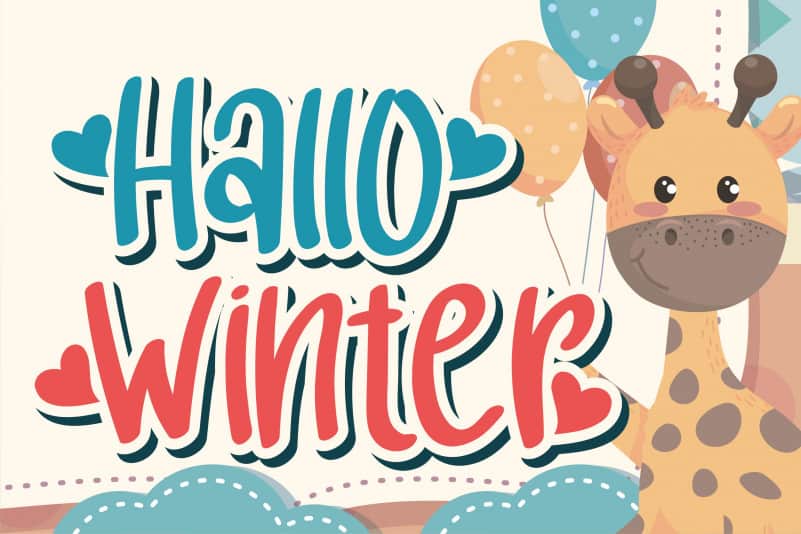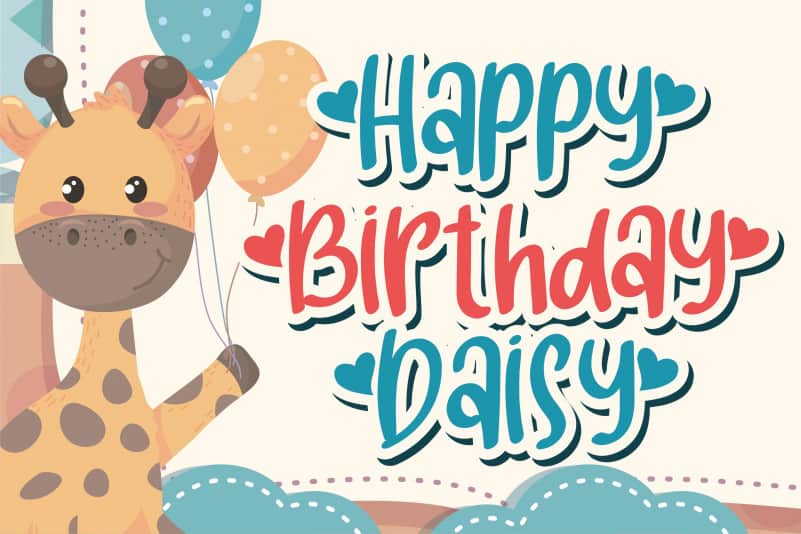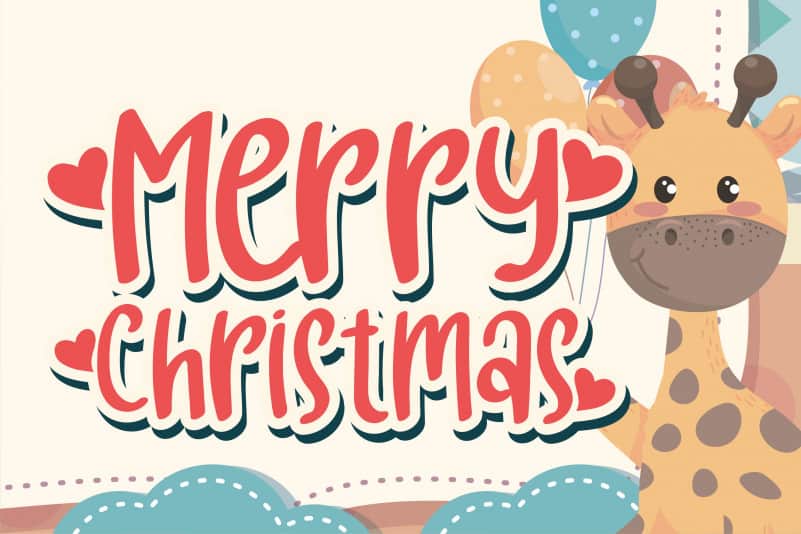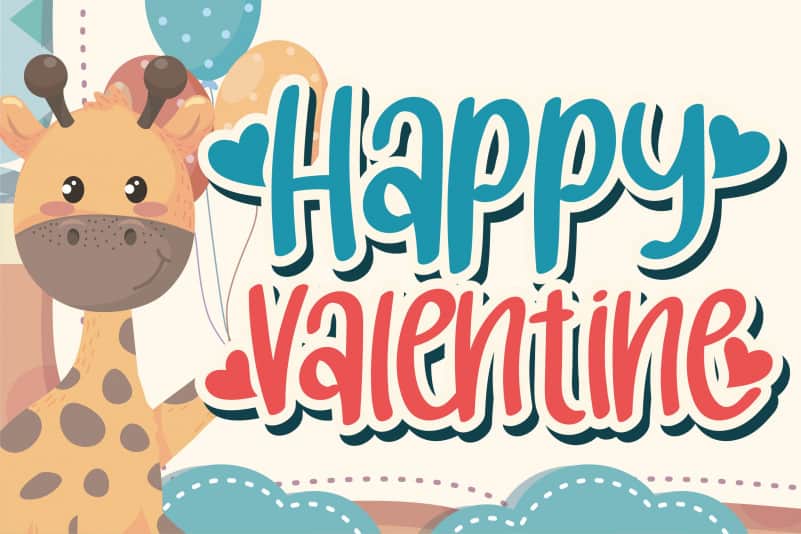
Hello Baby Display Font
Hello Baby Display Font is a cute and magical display font. It embodies playfulness and authenticity and is the perfect choice for any children activity or school project.